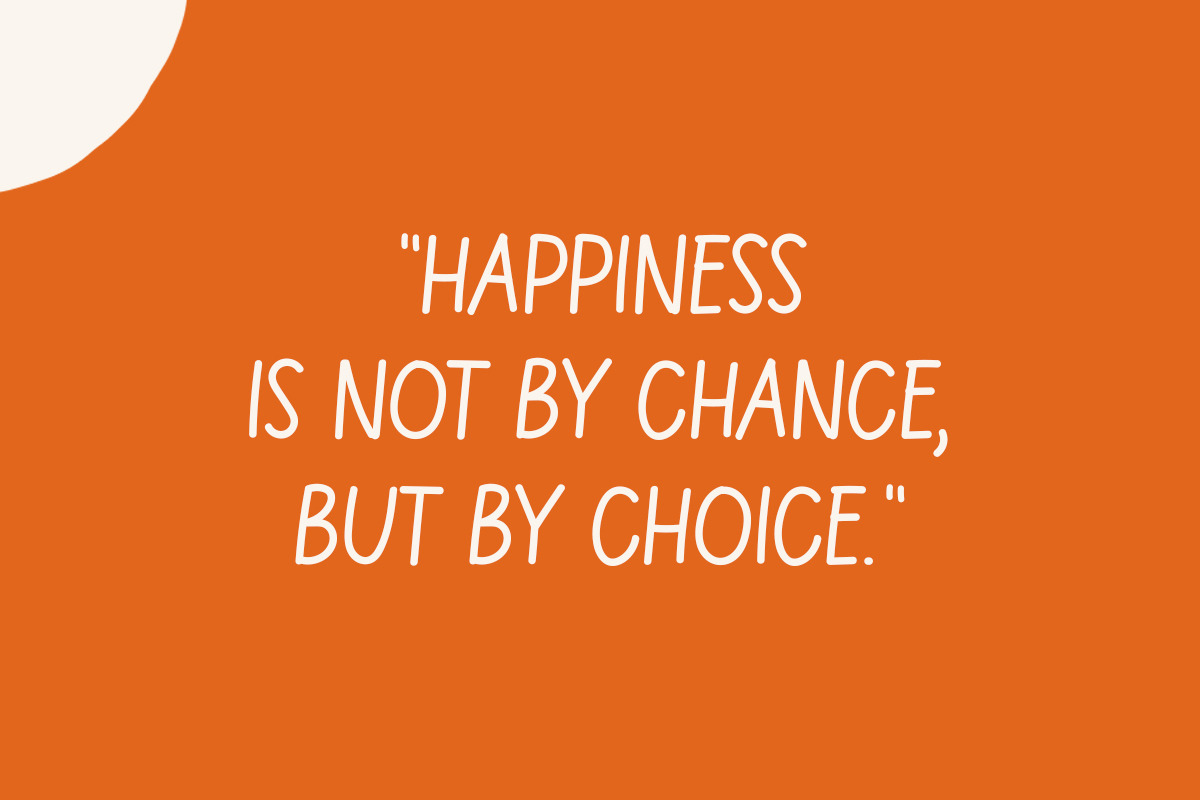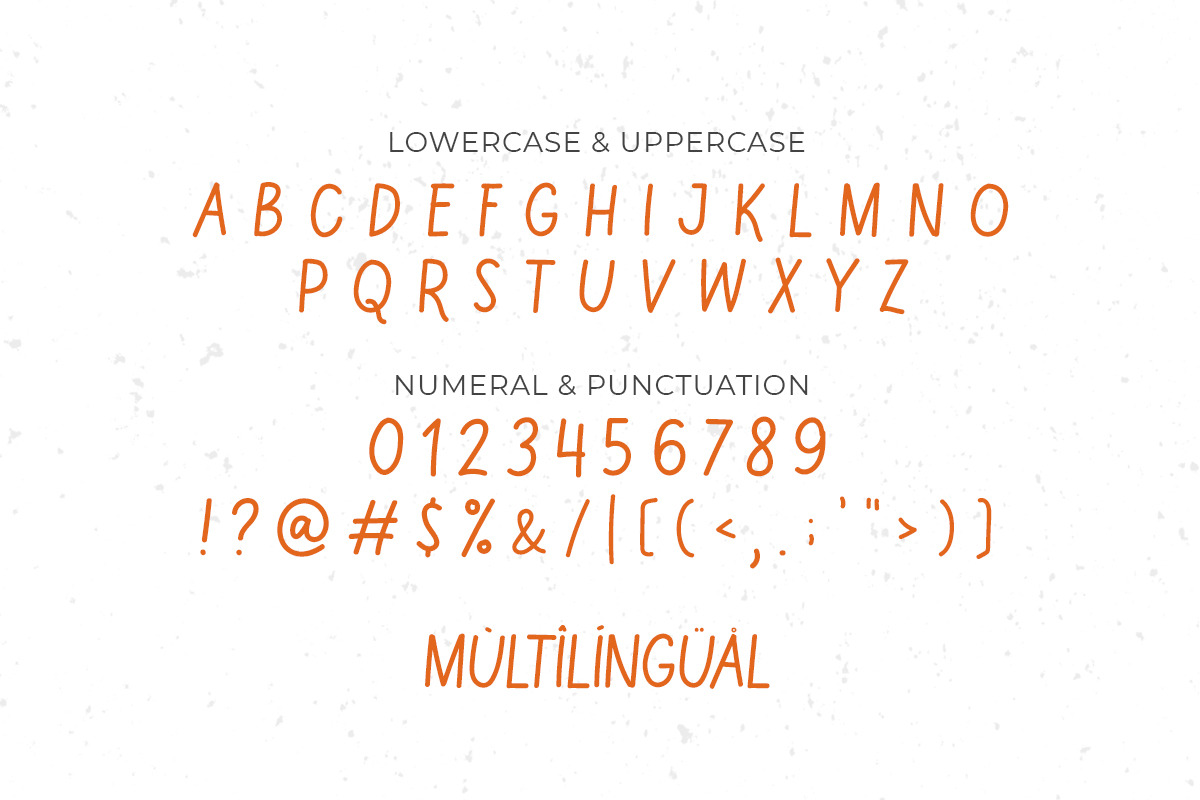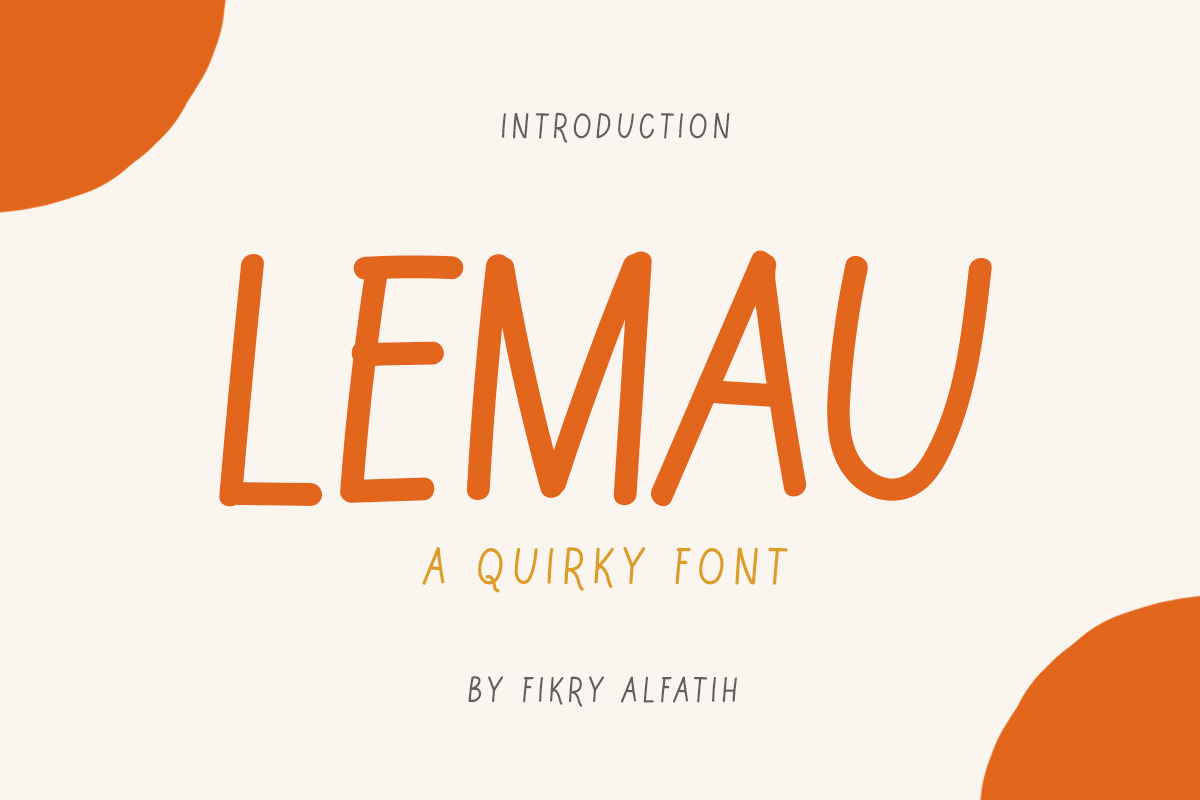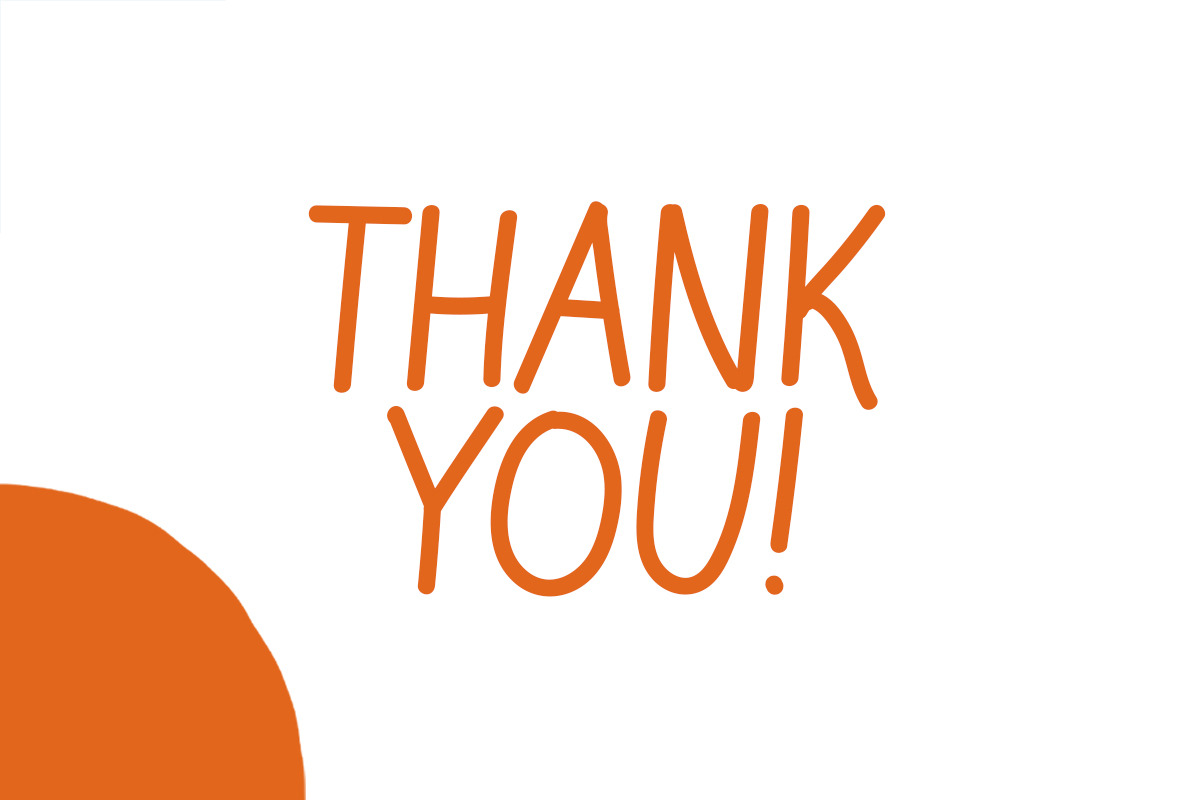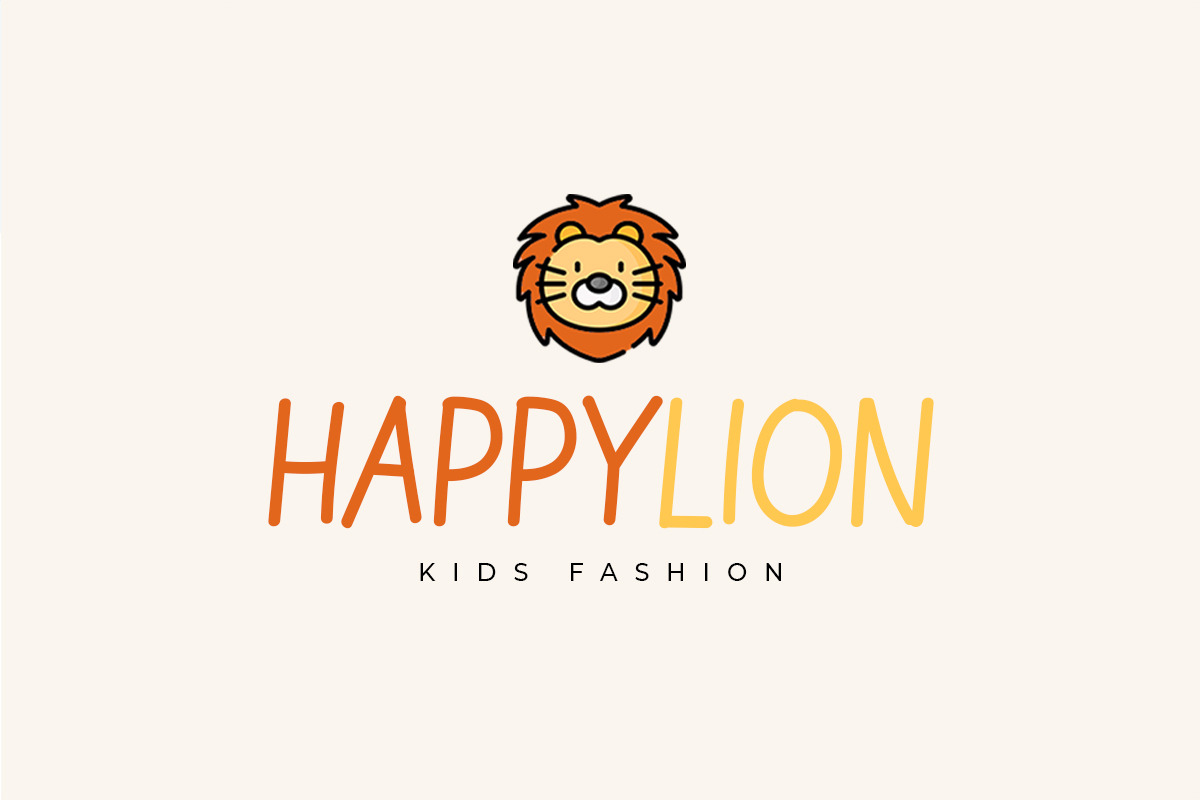
Lemau - Quirky Font
Lemau is a handwritten font that combines fun and playful glyphs. This font provides a luxurious hand-drawn effect that’s guaranteed to add great appeal to your quotes, logo designs, brand image, product packaging, merchandise & social media posts.